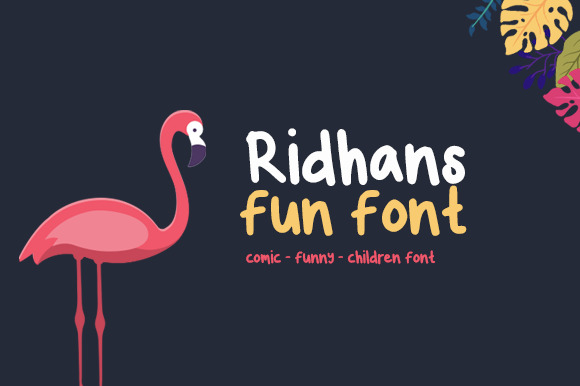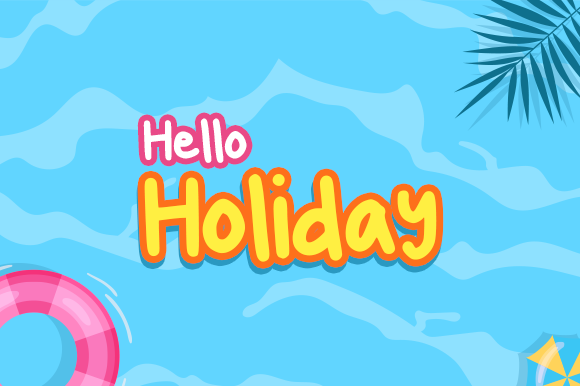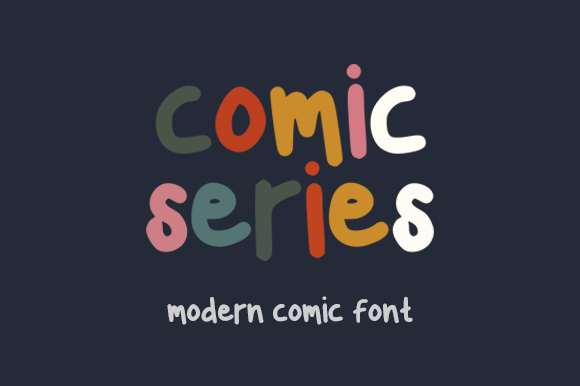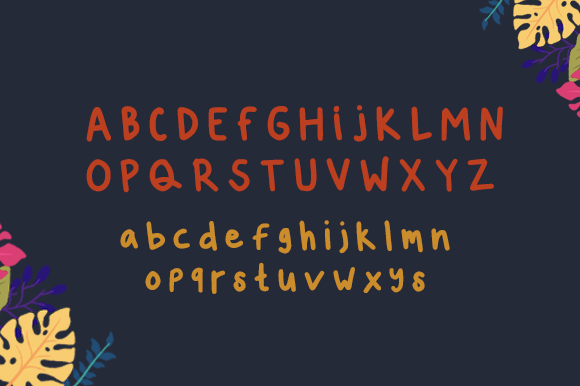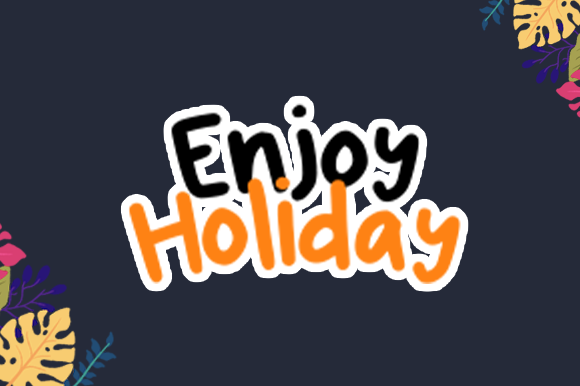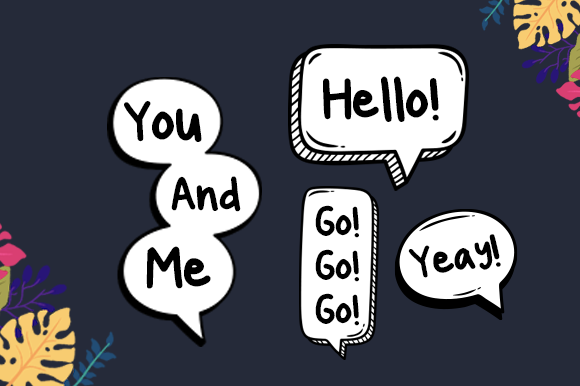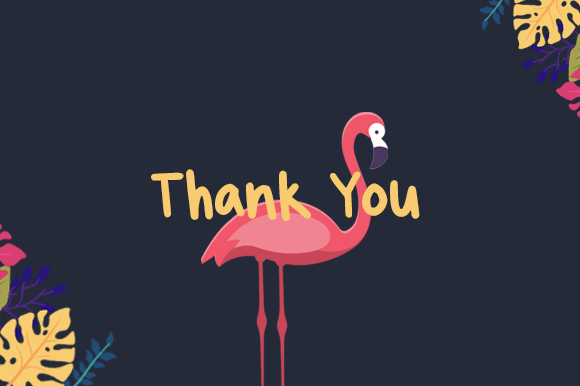
Ridhans Font
About Ridhans Font
Ridhans is a cute, fun and quirky handwritten font. Add it to your most creative kids or school project, and notice how it brightens them up!